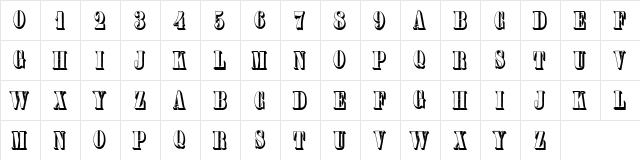
Plastische Plakat-Antiqua Regular
| Designer | Dieter Steffmann |
Design Context for Plastische Plakat-Antiqua Typeface
Plastische Plakat-Antiqua is a composed and adaptable typeface that performs quietly and consistently across a wide range of design contexts.